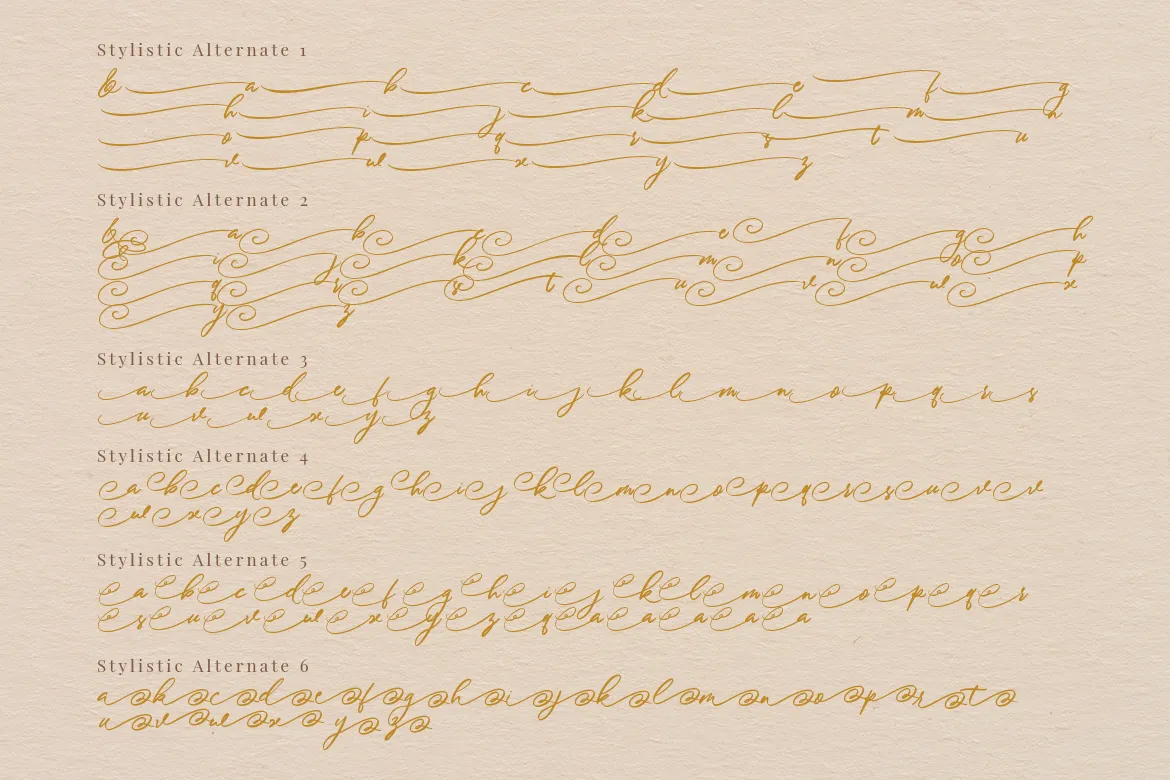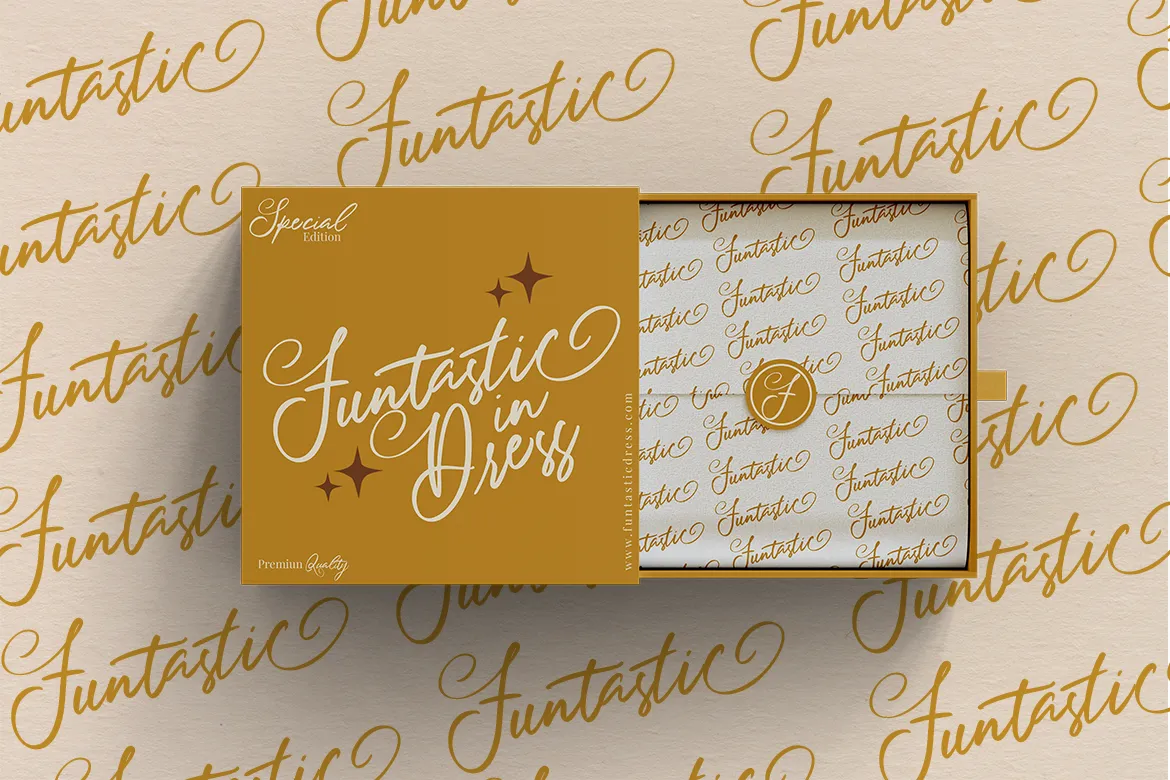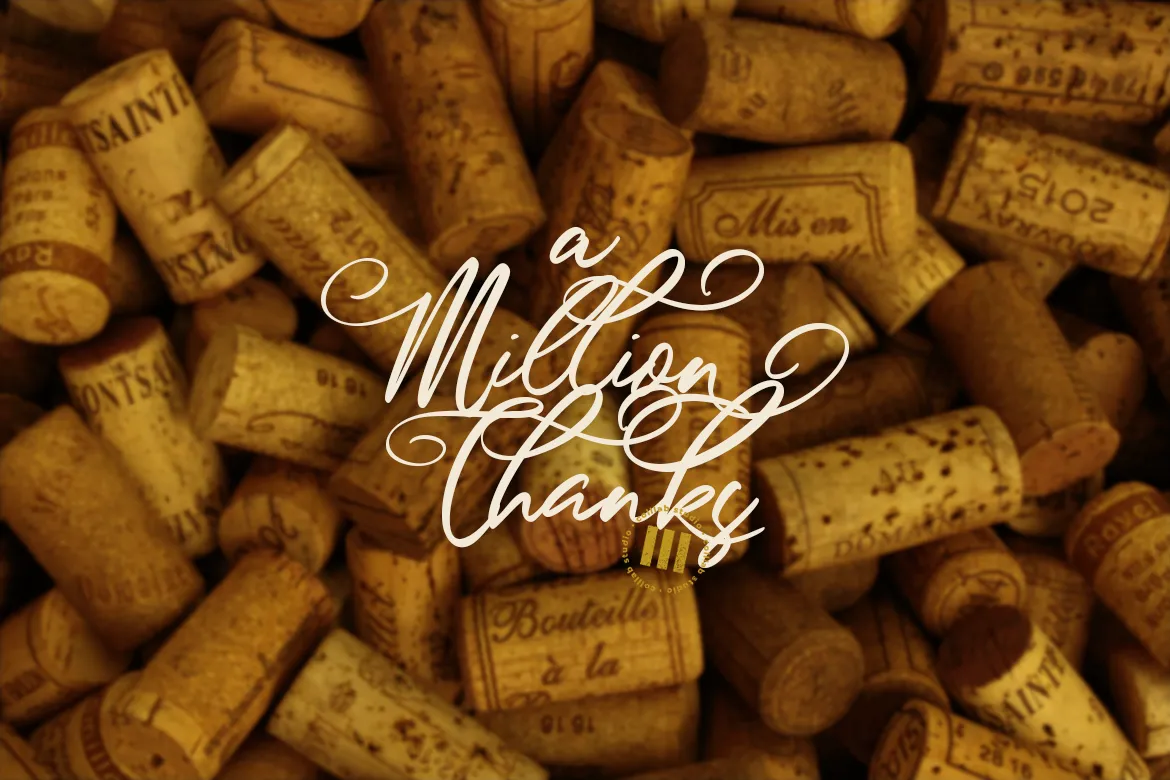
Danniela is a charming script font designed to bring playful grace and personality to your creative projects. With characters that seem to dance along the baseline, this font exudes friendliness and elegance with every stroke
In the mood for a font that’s both graceful and versatile? Danniela delivers. This PUA‑encoded script font brings sophisticated swashes and seamless compatibility across platforms. Perfect for print, web, or crafting—Danniela is where practicality meets personality